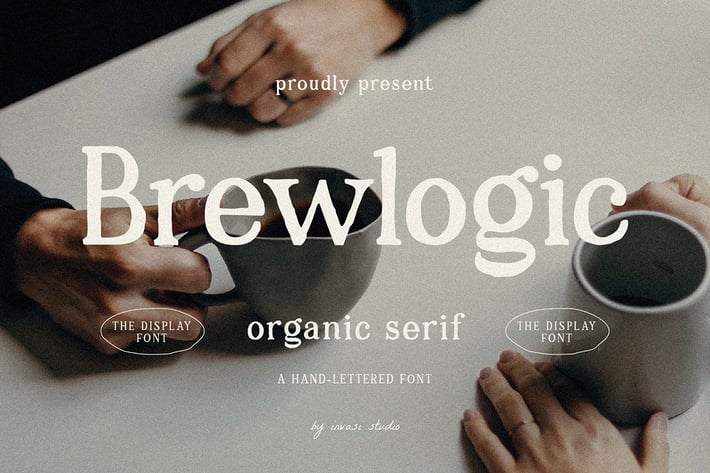
Brewlogic - Organic Display Font
Grab your cup of coffee and enjoy the organic display font we have just for you! The Brewlogic is a hand-lettered serif font that complements the fresh new look.
The best way to show your great taste is by displaying it on tags and packaging. Our organic display fonts are perfect for that, as they match your brand's style and tone!